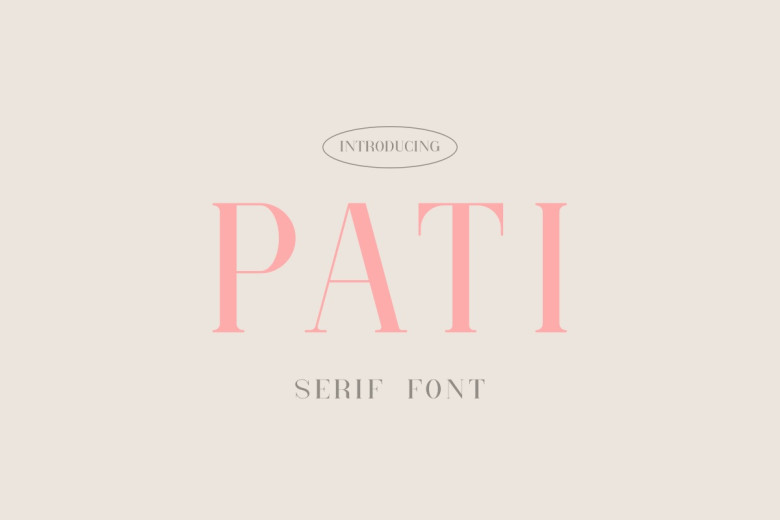
Pati Font
Pati was designed as a minimal, neat serif font. It fits great to different acryl composition. Include this serif to your ideas and notice how much they shine!
Pati Serif Font